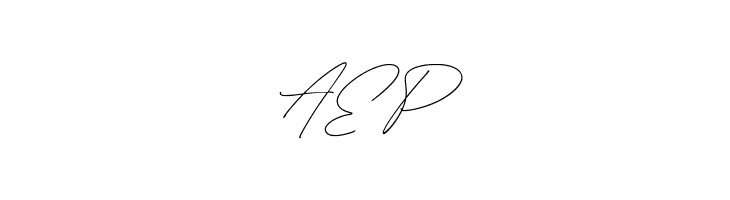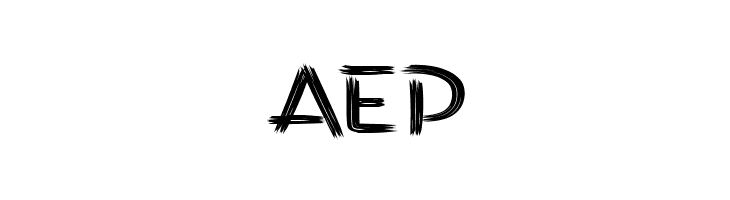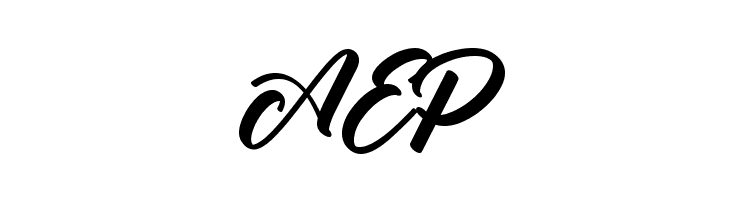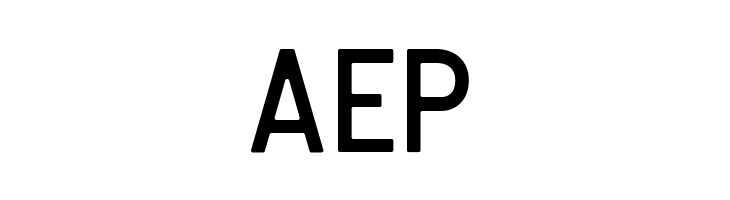
• Antoinete
A flowing, cursive font with elegant loops and artistic flair.
• Antoinete Italic
A graceful, italic script font with medium contrast and fluid connections.
• anton
A whimsical, cursive font with decorative swirls and a handwritten style.
• Antone DEMO Clean
A clean, modern sans-serif font with bold, uniform strokes and geometric structure.
• Antonellie Calligraphy Demo
A flowing, calligraphic script font with elegant, connected strokes.
• Antonio Fischer
A refined, cursive script font with a flowing, handwritten style.
• Antonio Zull Brush
A dynamic brush-style font with bold, sweeping strokes and a hand-painted look.
• Antonio Zull Italic
A bold, brush-style italic font with dynamic strokes and artistic flair.
• Antosan-Regular
A dynamic, expressive handwritten font with fluid strokes and varying thickness.
• Antosan-Regular
A dynamic and expressive handwritten font with fluid, organic strokes.